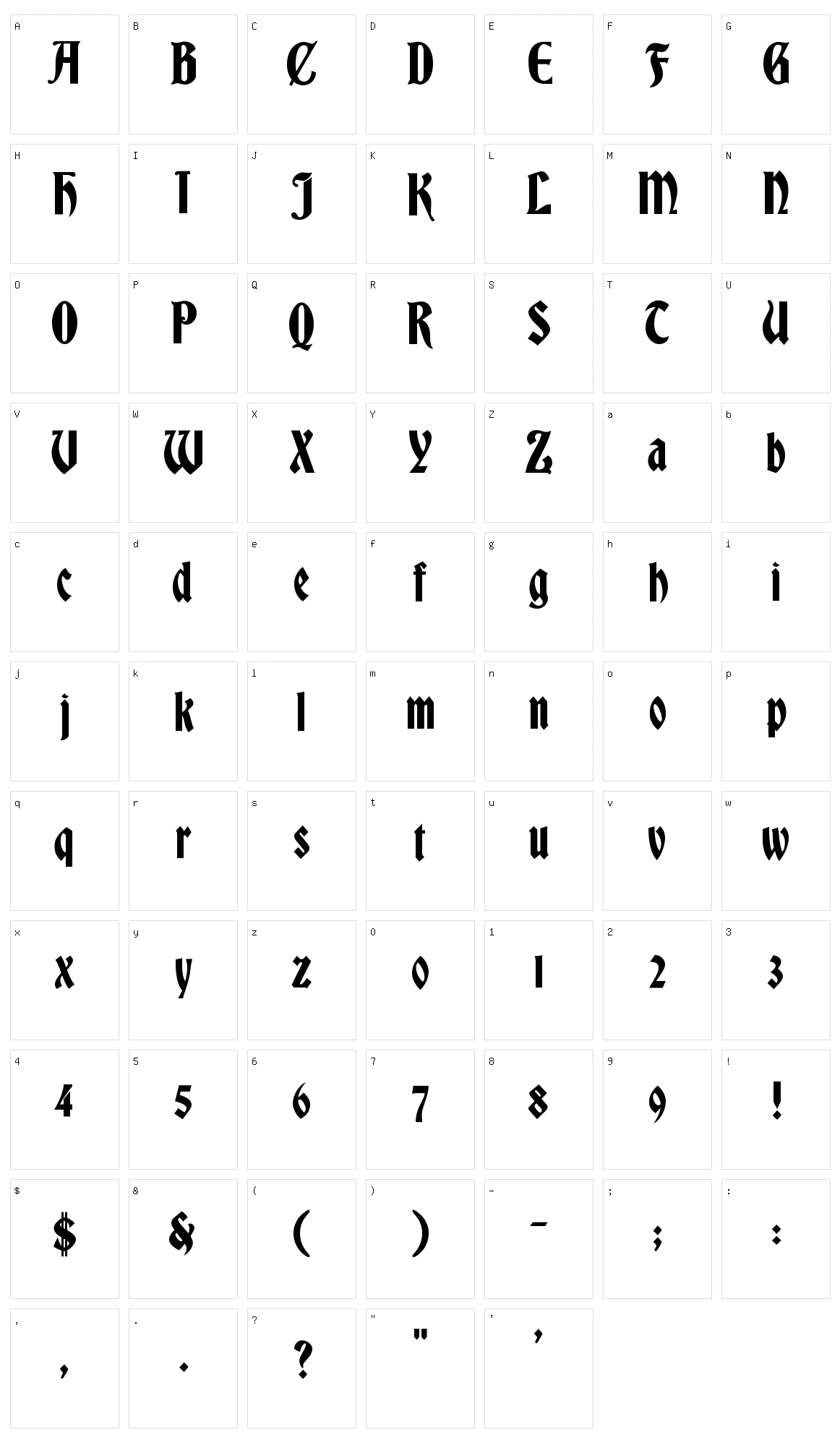
Bradley Gratis
Designed by: Justin Callaghan
Bradley is an 1895 typeface credited to Joseph Warren Phinney (1848-1934). It was based on lettering by Henry William Bradley (1869-1962) for a Christmas cover of Harper's Bazaar magazine. Bradley was the basis for logotypes such as Firestone and Ketel One, and has been used more recently by Disney on theme park signage.
This digitization is based on a specimen from Dover's "Gothic and Old English Alphabets : 100 Complete Fonts" selected and arranged by Dan X. Solo from the Solotype Typographers Catalog.